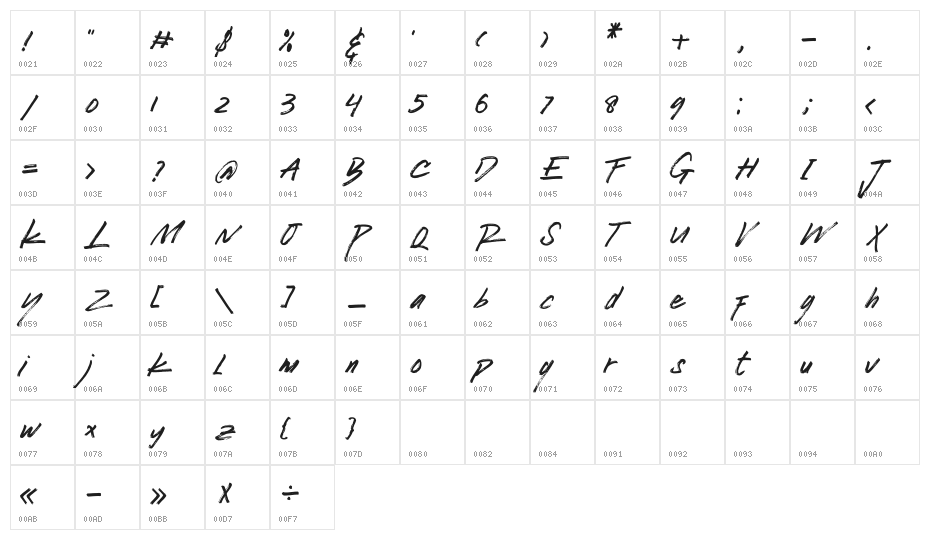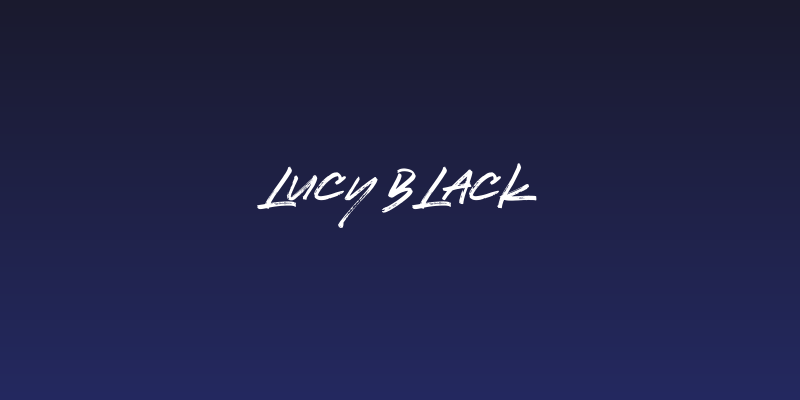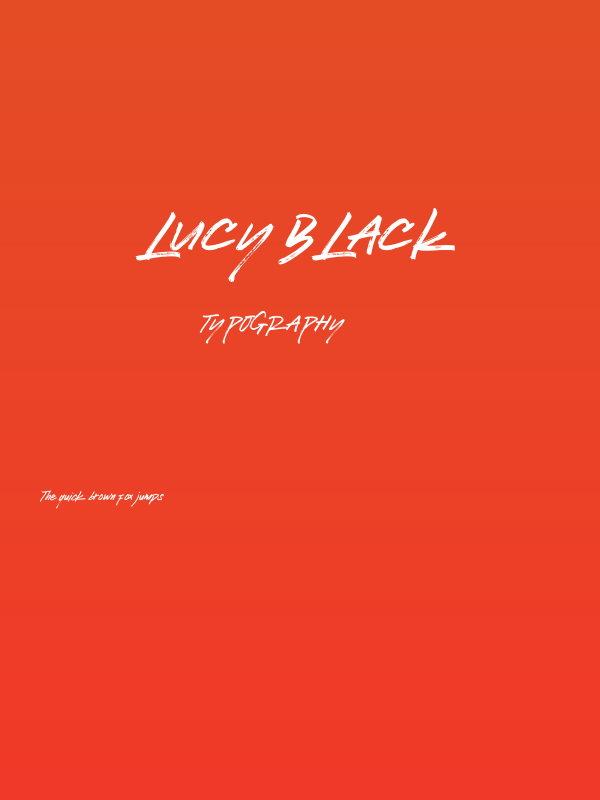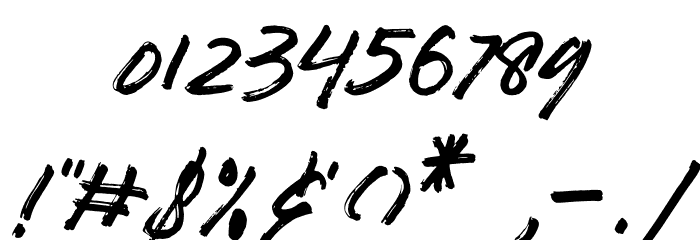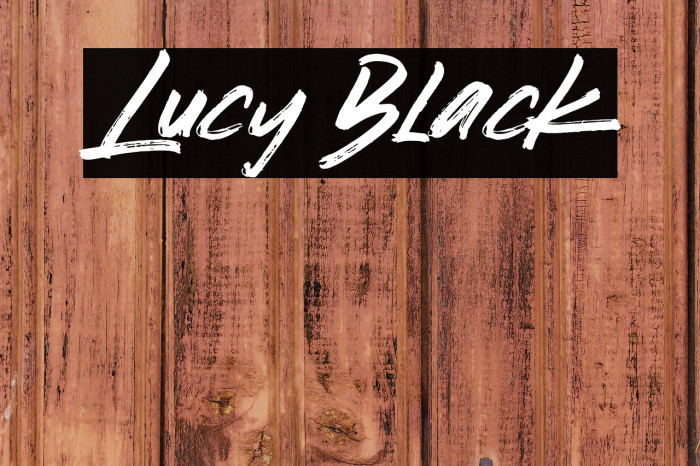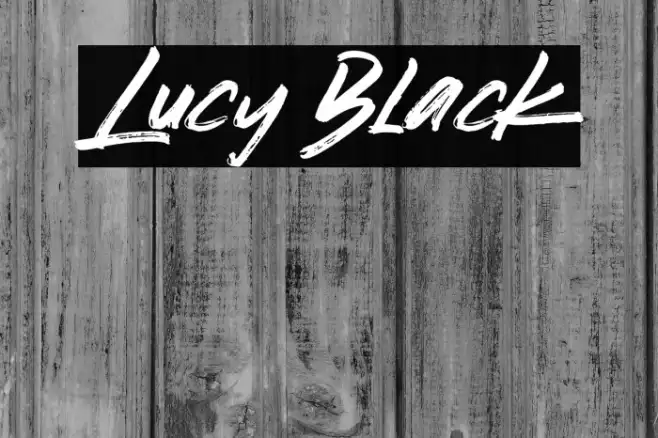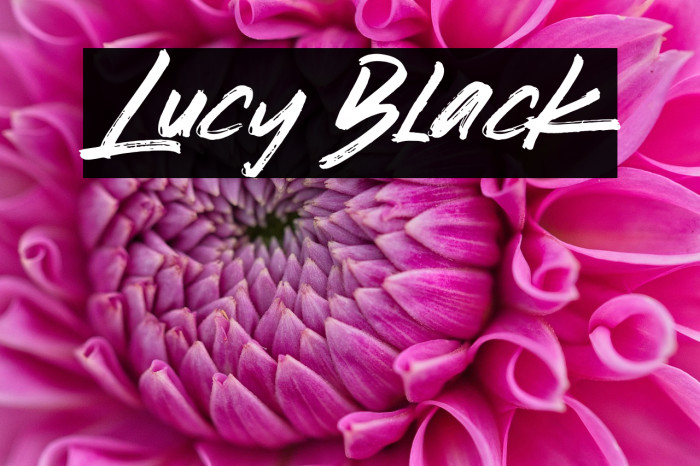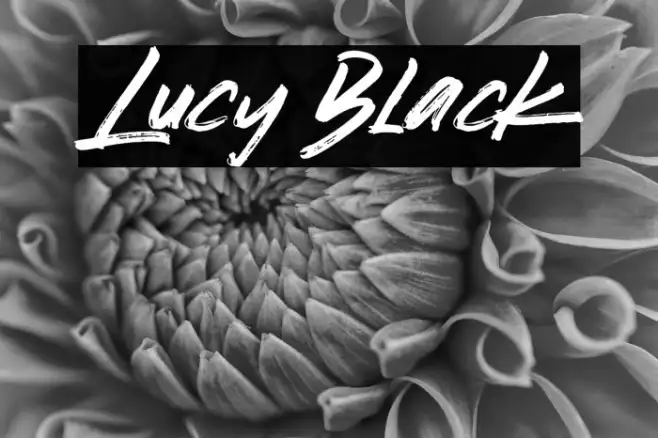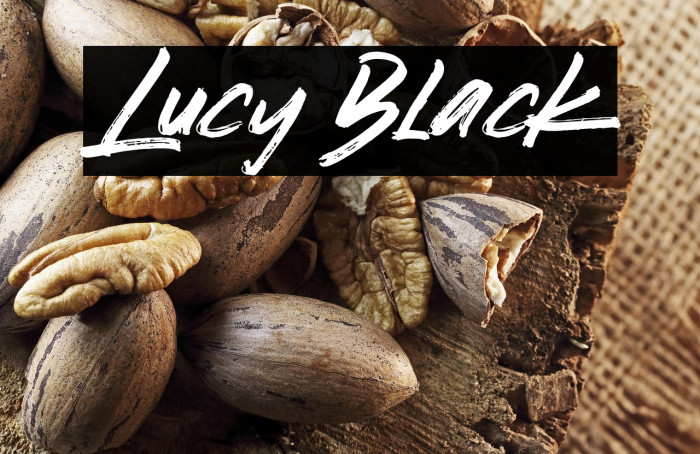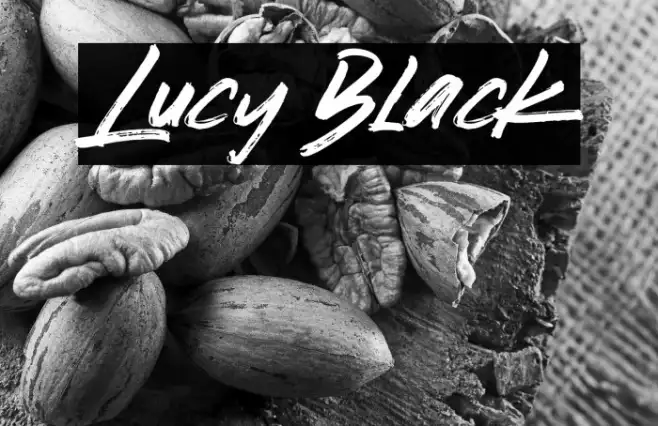
Lucy Black Font
Lucy Black Description
This font exudes a bold and expressive style, characterized by its brush-like strokes and dynamic, flowing forms. The letters have a hand-drawn appearance, with varying thicknesses that create a sense of movement and energy. The uppercase and lowercase letters maintain a consistent style, with the uppercase being slightly more pronounced. Numbers and special characters follow the same aesthetic, ensuring a cohesive look across all text elements. The font's rough edges and irregularities add to its charm, making it ideal for projects that require a personal touch or artistic flair.